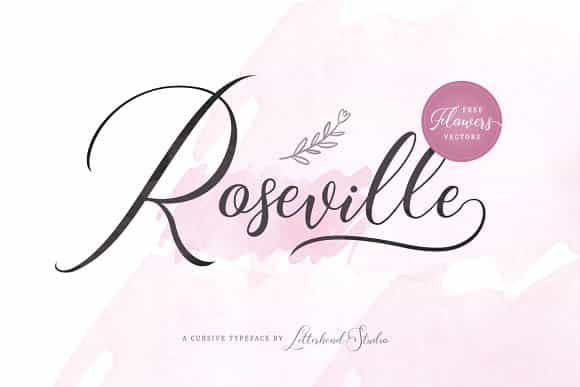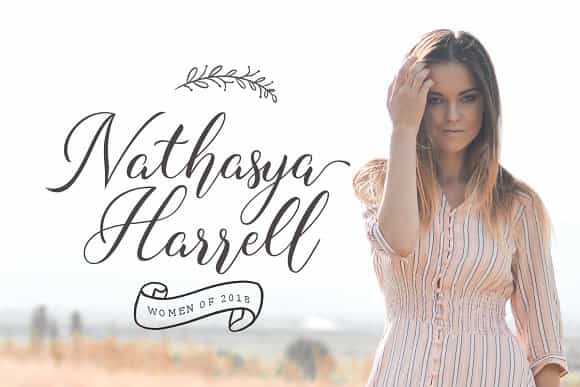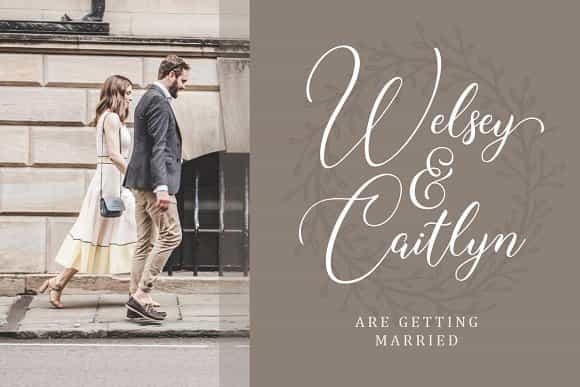
Introducing Roseville Font. Roseville – a stylish modern script that brings luxury feel. The natural hand writing script is for you who needs a typeface for headline. Absolutely perfect for the greeting cards, branding materials, business cards, quotes and posters!This font is the best for a wedding postcard. Alternatively, you can design a perfect and one-of-a-kind logo, blog, stationery, marketing materials , magazines etc. yourself?